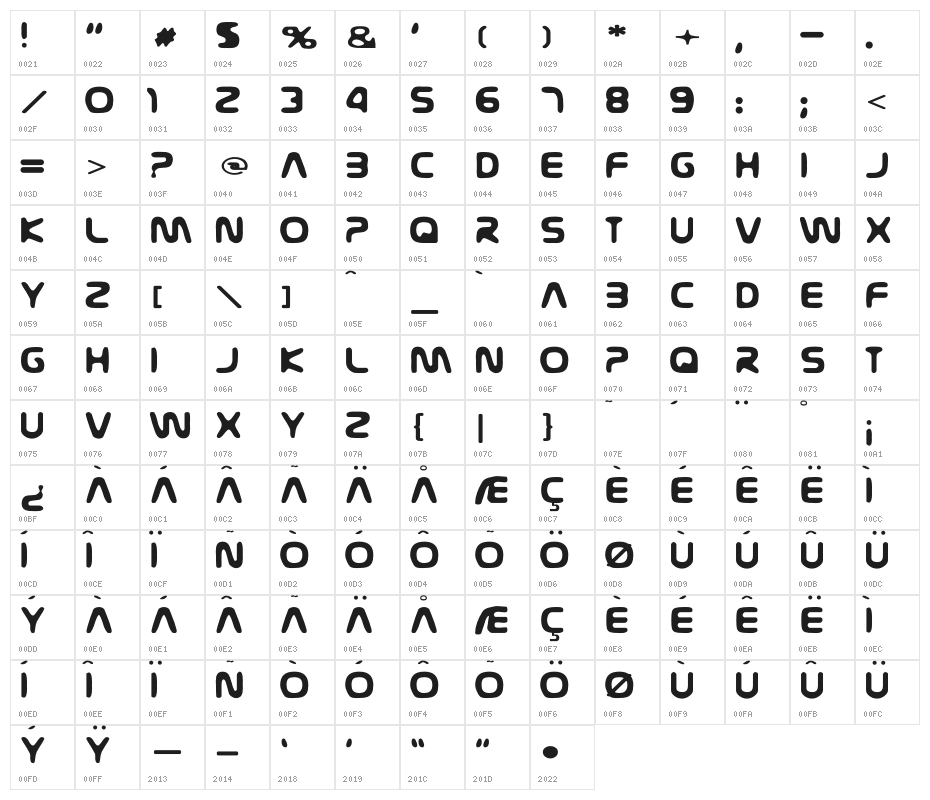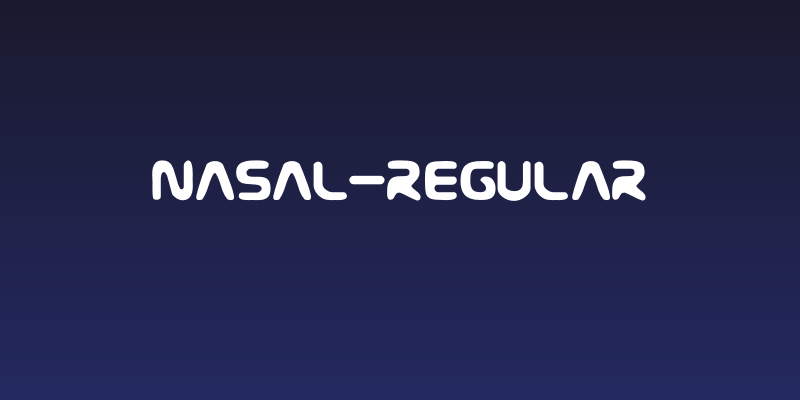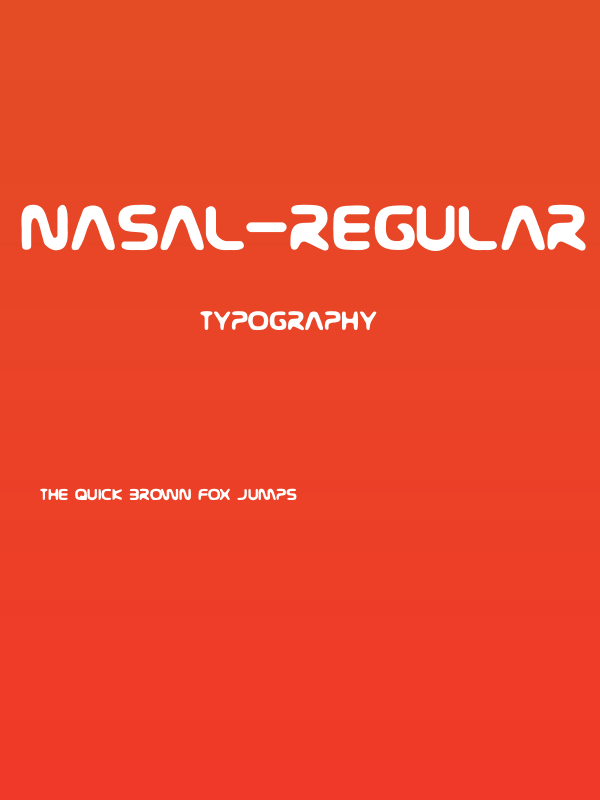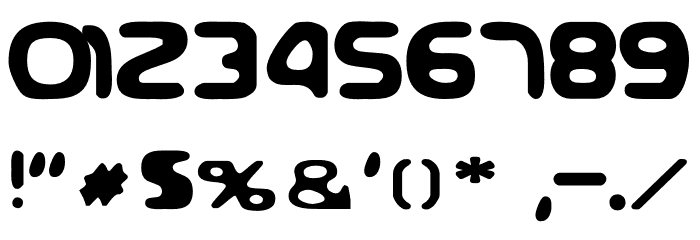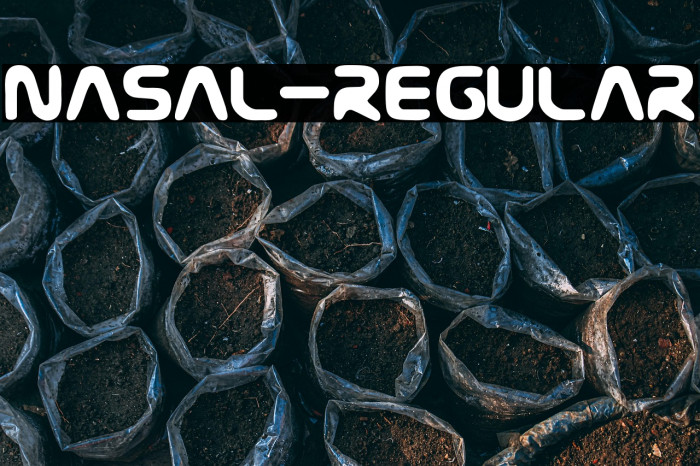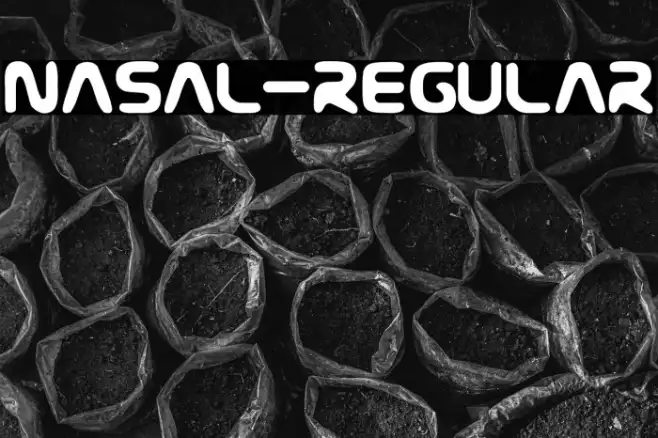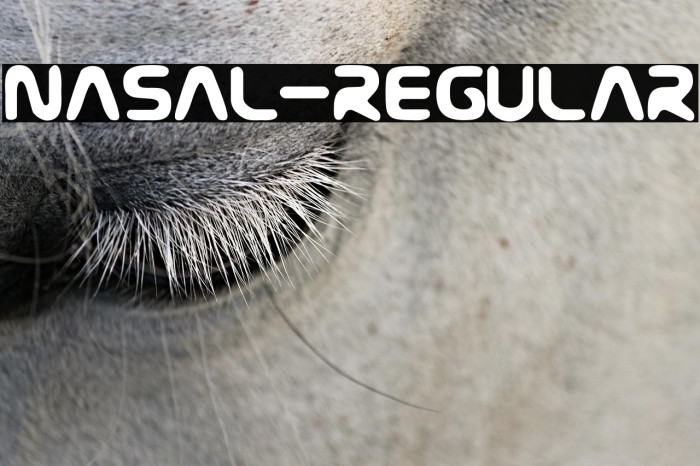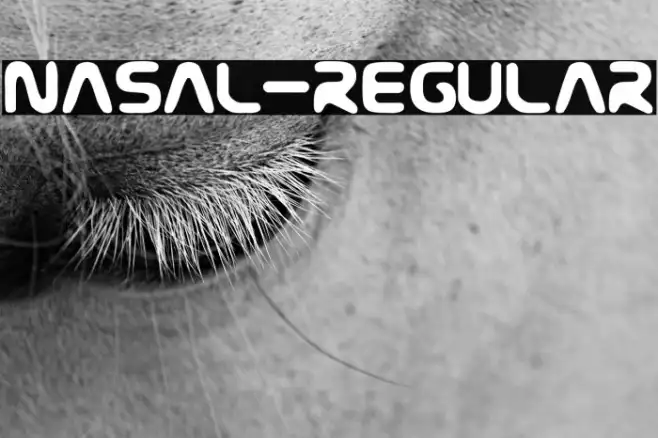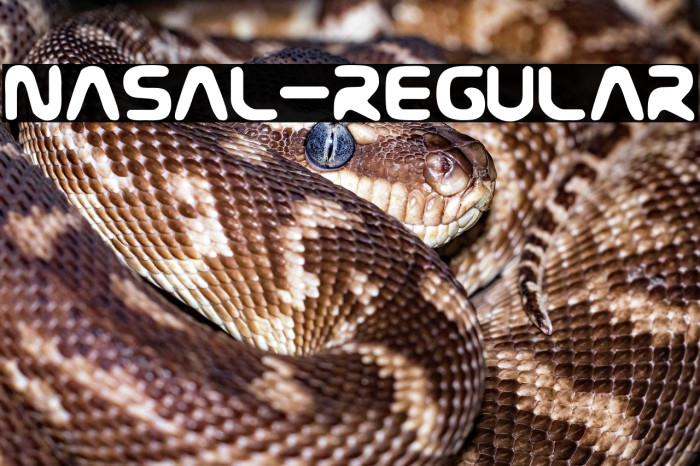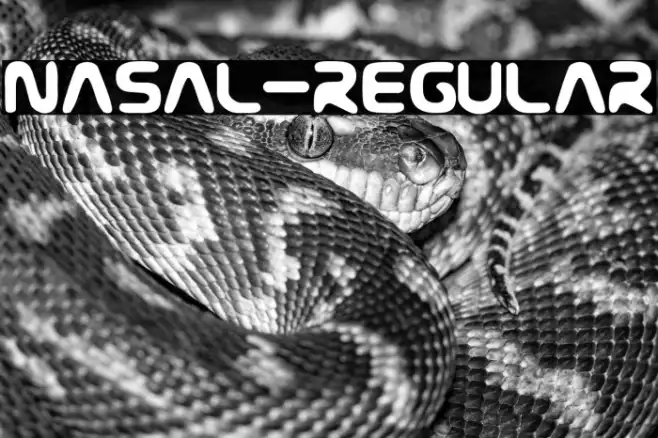
Nasal-Regular Font
Nasal-Regular Description
This font features a bold and rounded design, characterized by its smooth, flowing curves and consistent stroke width. The letters have a playful and modern appearance, with a slightly futuristic touch. The rounded edges and uniform thickness give it a friendly and approachable feel, making it suitable for a variety of creative applications. The numbers and special characters maintain the same stylistic elements, ensuring a cohesive look across all characters.
| Proposed Projects | Ideal for branding, advertising, children's books, and creative digital media projects. |